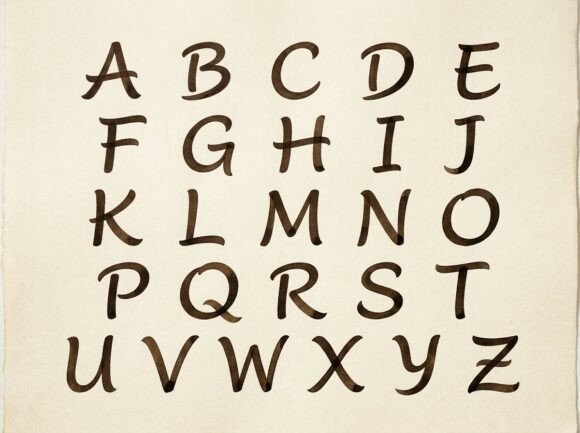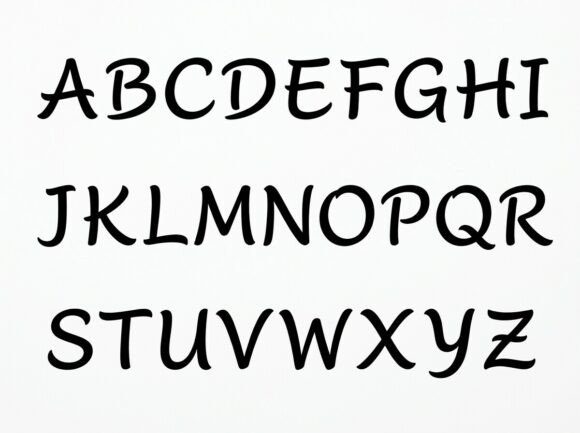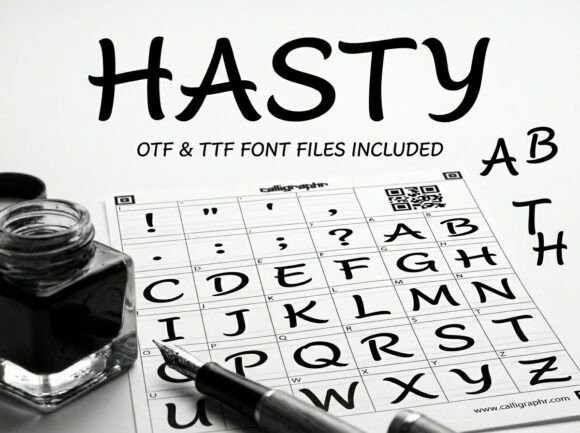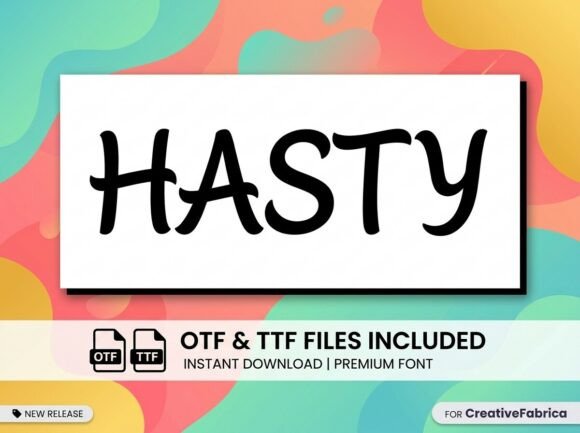
Introducing Hasty Font: A Stunning Decorative Display Font
Are you tired of using the same old fonts for your designs? Do you want to add a touch of uniqueness and creativity to your projects? Look no further than Hasty Font, a decorative display font that is sure to turn heads. In this article, we’ll take a closer look at what makes Hasty Font so special and how it can elevate your designs to the next level.
Hasty Font is a stunning decorative display font designed to be the center of attention. With its unique artistic elements and strong visual personality, this font is perfect for creators who want to break away from the ordinary. Whether you’re working on a bold headline, artistic logo, or creative packaging, Hasty Font is versatile enough to make a lasting impression while maintaining a professional and polished finish.
Before you make a purchase, it’s essential to note that Hasty Font is an ALL-CAPS (Uppercase Only) display typeface. This means it does not include lowercase letters. It is specifically designed for high-impact headlines, logos, and decorative initials where every letter is a work of art.
This unique design approach allows for a level of detail and craftsmanship that would be impossible with traditional fonts. Each uppercase letter is carefully crafted to be a stunning visual element that can stand alone or work together with other letters to create a cohesive design.
Hasty Font is an excellent choice for designers and crafters who want to add a touch of elegance and sophistication to their projects. Here are just a few ways you can use Hasty Font:
- Graphic Design: Use Hasty Font to create eye-catching posters, flyers, and brochures that demand attention.
- Logos and Branding: Hasty Font is perfect for creating unique and memorable logos that reflect your brand’s personality.
- Crafting and DIY Projects: Add a touch of elegance to your crafting and DIY projects, such as handmade cards, gift tags, and scrapbooking.
- Digital Art: Use Hasty Font to add a decorative element to your digital art, such as illustrations, paintings, and mixed media projects.
Tips for Using Hasty Font
To get the most out of Hasty Font, here are a few tips to keep in mind:
- Use it sparingly: Due to its bold and decorative nature, Hasty Font is best used sparingly to make a maximum impact.
- Experiment with colors: Hasty Font looks great in a variety of colors, so don’t be afraid to experiment and find the perfect hue for your design.
- Pair it with other fonts: Hasty Font can be paired with other fonts to create a unique and visually appealing design.
In conclusion, Hasty Font is a stunning decorative display font that is sure to elevate your designs to the next level. With its unique artistic elements and strong visual personality, this font is perfect for creators who want to break away from the ordinary. Whether you’re a designer, crafter, or DIY enthusiast, Hasty Font is an excellent choice for anyone looking to add a touch of elegance and sophistication to their projects.